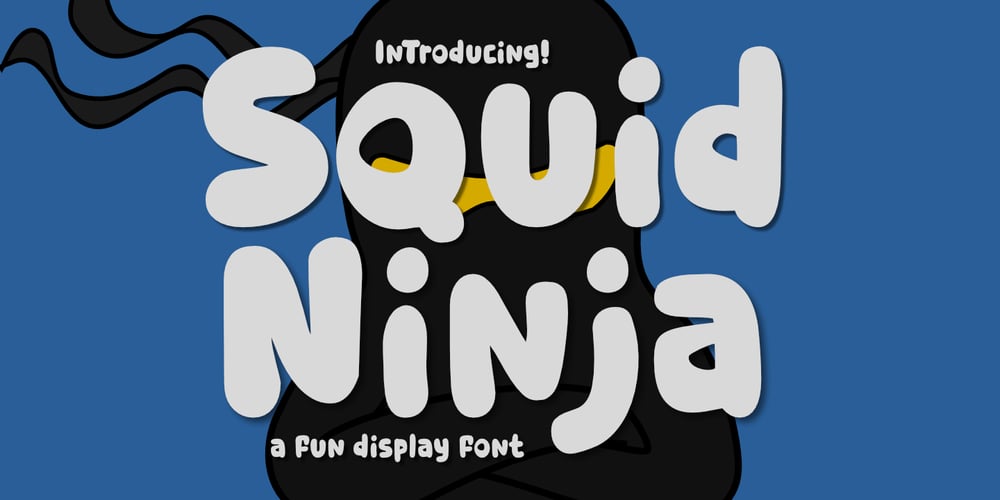
Squid Ninja
Squid Ninja font
Squid Ninja Font Family was designed by Aldy Sidik and published by Epiclinez. Squid Ninja contains 1 styles and family package options. Squid Ninja is a bold, fun display font with unique characters and playful vibes. It’s a good choice for creating exciting logotypes, eye-catching headlines, catchy titles, and more. Squid Ninja offers a wide range of possibilities to make your work look dynamic and more enjoyable.Squid Ninja font includes : Basic Latin Uppercase and Lowercase Numbers, symbols, and punctuations Multilingual Support. Simple Installations & Works on PC & Mac Thank You and happy designing!